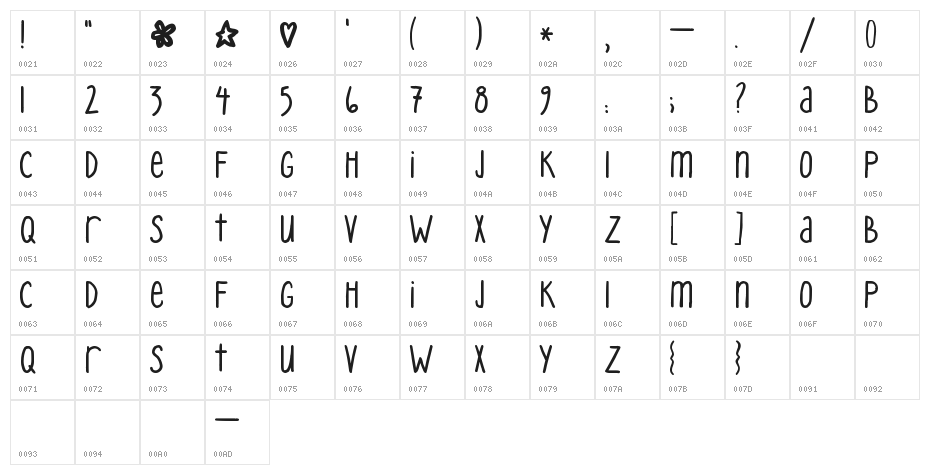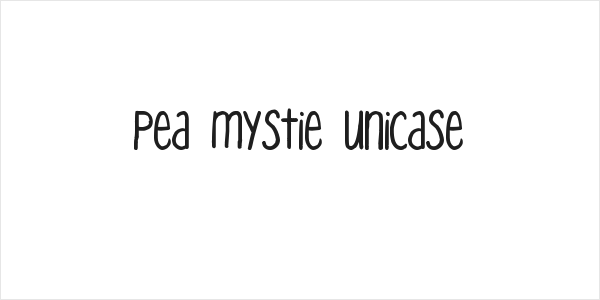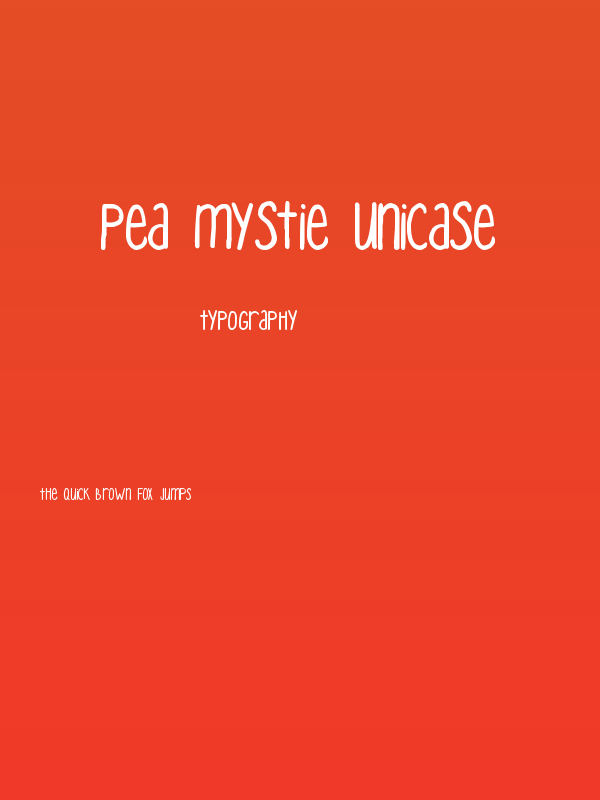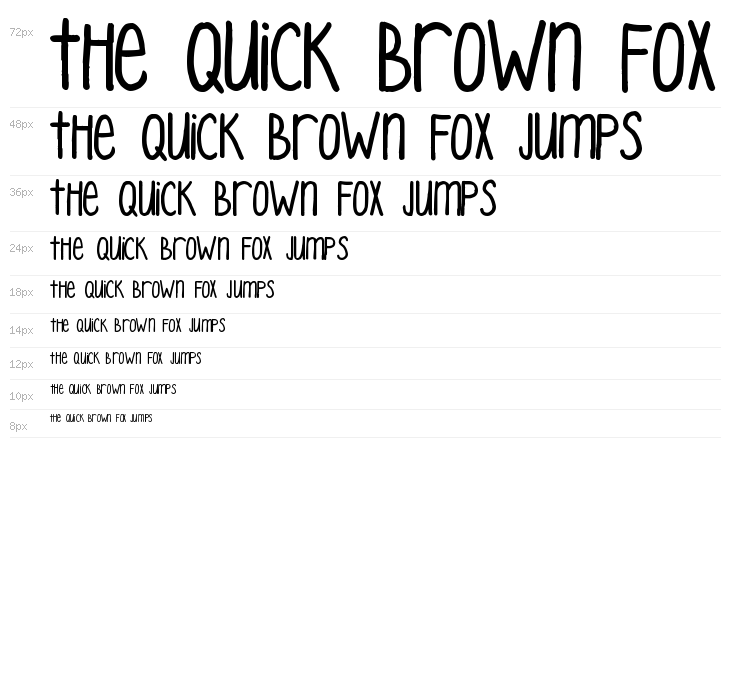
Pea Mystie Unicase Font
Pea Mystie Unicase Description
This playful and whimsical font features a unique unicase design where uppercase and lowercase letters are blended seamlessly. The characters are tall and narrow with a hand-drawn, casual appearance, giving it a friendly and approachable feel. The strokes are consistent in width, providing a uniform look across all characters. The numbers and special characters maintain the same playful style, adding to the font's cohesive appearance. This font is perfect for projects that require a touch of personality and creativity.
| Proposed Projects | Ideal for children's books, greeting cards, playful branding, and creative posters. |